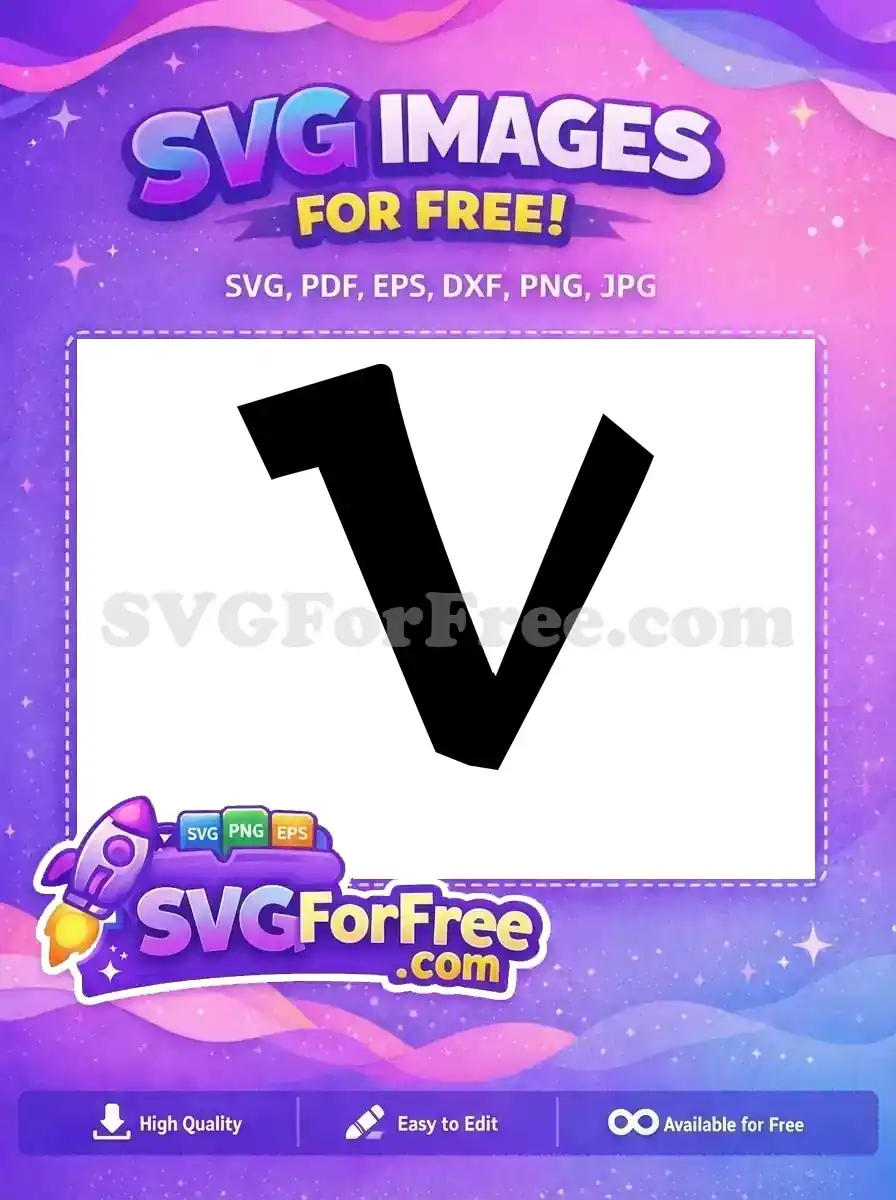
Free Stitch Font Letter V Free Lilo and Stitch Movie Free SVG – Instant Download
Lowercase v, free vector in a fun style.
Free Stitch Font Letter V Free Lilo and Stitch Movie Free SVG